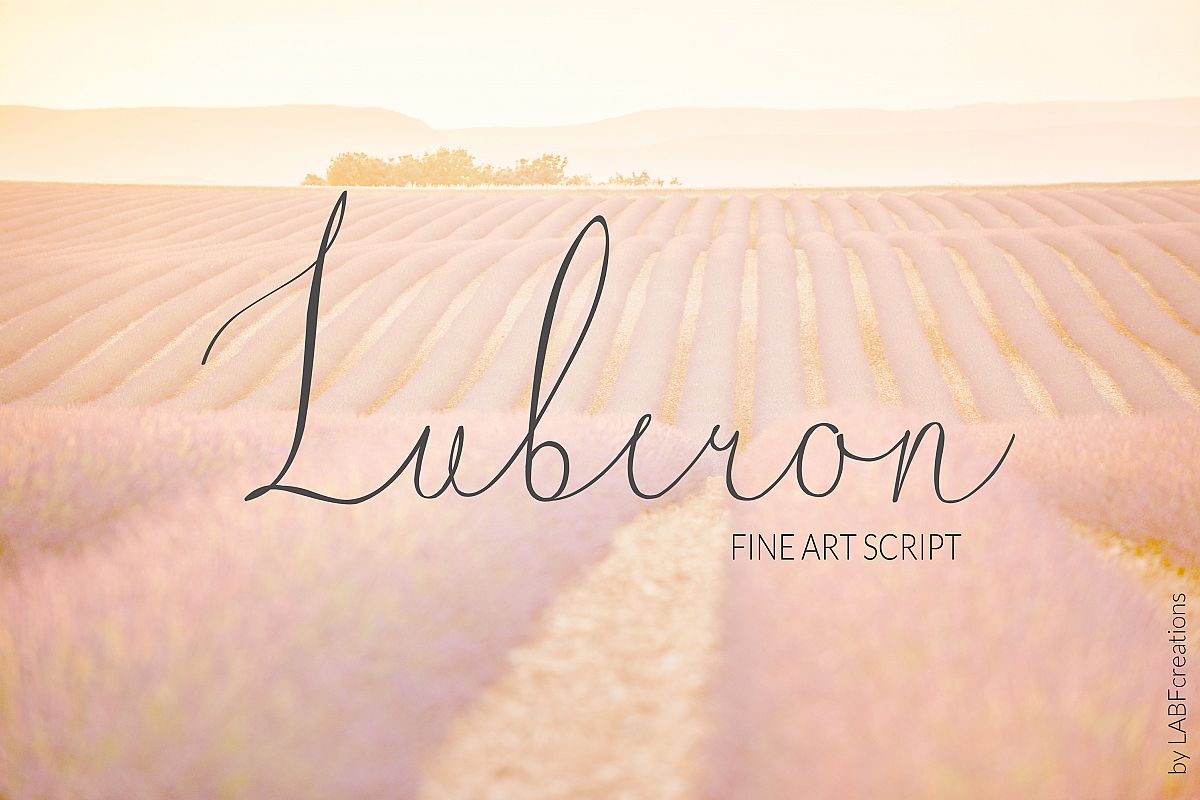
Luberon. Fine art script
Luberon Swashes
Luberon
Luberon. original FINE ART typeface. Modern calligraphy typeface elegant and romantic. It is perfect for branding, wedding invites and cards, logo, blog.Luberon includes full set of gorgeous uppercase and lowercase letters, numerals, a large range of punctuation and ligatures. Using Luberon Swashes for lowercase letters you will be able to add original and romantic touch to letternig. You will get: Luberon OTF Luberon TTF Luberon WOFFSwashes for lowercase lettersLuberon swashes OTF Luberon swashes TTF Luberon swashes WOFFIn order to use the beautiful swashes, you need a program that supports OpenType features such as Adobe Illustrator CS, Adobe Photoshop CC, Adobe Indesign and Corel Draw. Thank you! Follow me by Instagram: @labfcreations